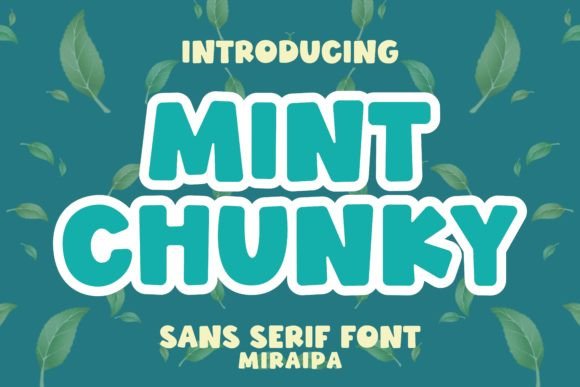
Introducing Mint Chunky Font, the ultimate choice for anyone seeking the best font for birthdays and beyond. Created by miraipa, this adorable and playful sans serif font is here to add a touch of charm, whimsy, and a hint of quirkiness to your projects.
Imagine the possibilities with Mint Chunky Font. It's the perfect companion for all your fun-filled endeavors, whether it's designing a diary planner, creating stunning Easter decorations, preparing for back-to-school festivities, planning a dreamy wedding, or throwing an unforgettable party.
With Mint Chunky Font, the excitement never ends. It's a versatile typeface that effortlessly enhances invitations, captures the essence of fall, adds a spooky touch to Halloween designs, spreads Christmas cheer, and brings personality to posters, blogs, clothing, and child-related designs.
Not only does Mint Chunky Font make your projects stand out, but it also adds a friendly and approachable touch to any piece of art. From greeting cards that warm hearts to social media posts that create connections, this font breathes life into every creative endeavor.
Add Mint Chunky Font to your fonts library now and experience the magic it brings to your DIY projects. Its captivating style will mesmerize your audience and leave a lasting impression. Every stroke and curve of this font is meticulously crafted to evoke emotions and spark joy.
Don't settle for ordinary fonts when you can have Mint Chunky Font. Let it be the secret ingredient that elevates your designs to new heights. The possibilities are endless, and with Mint Chunky Font, your imagination can run wild.